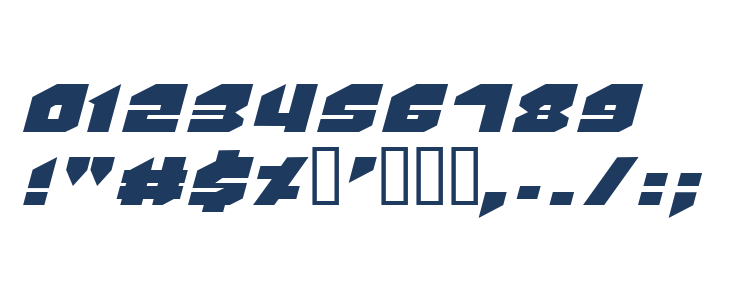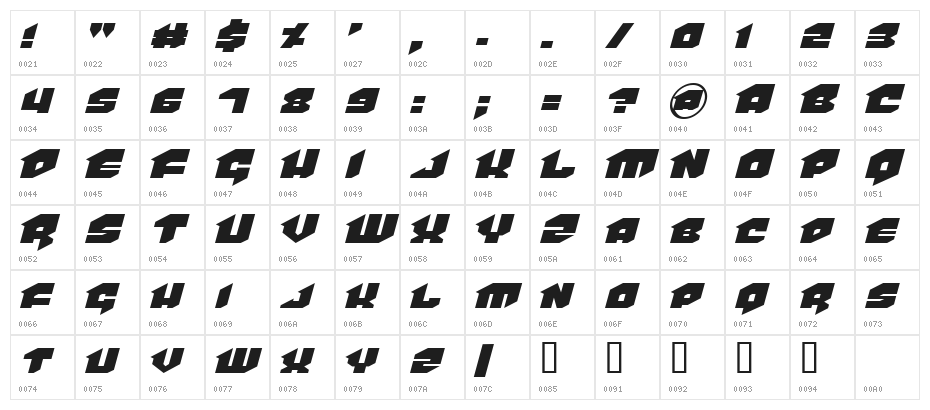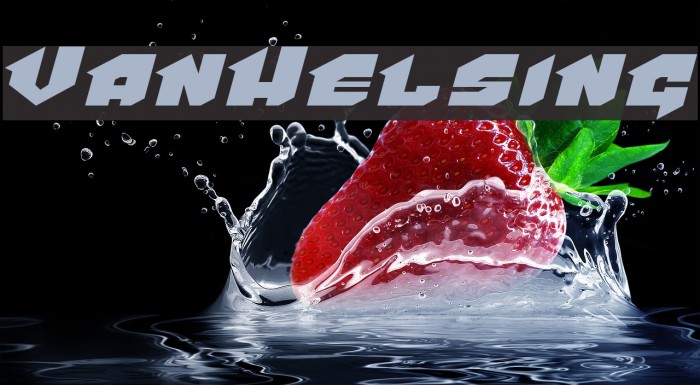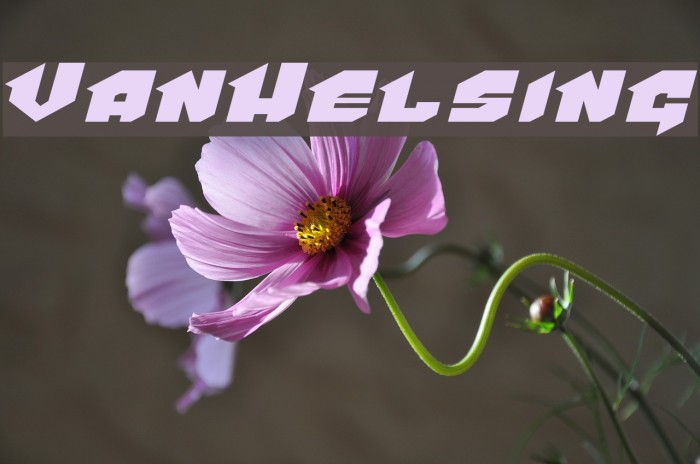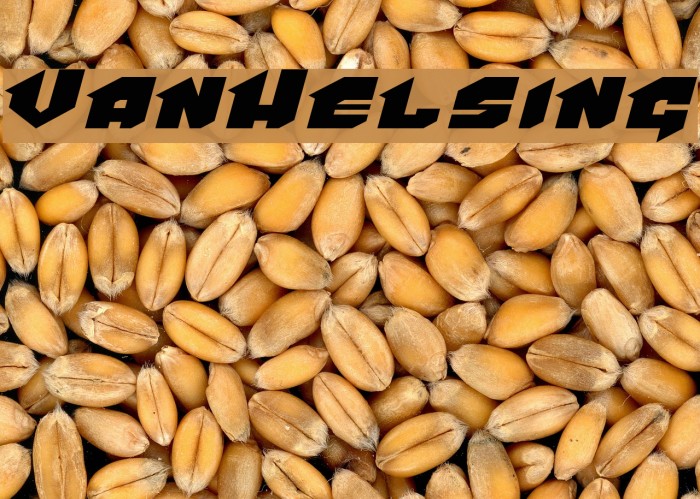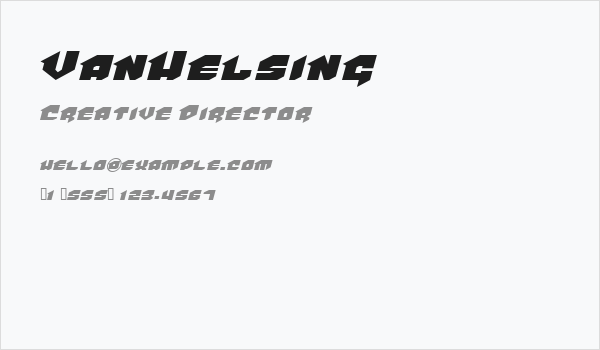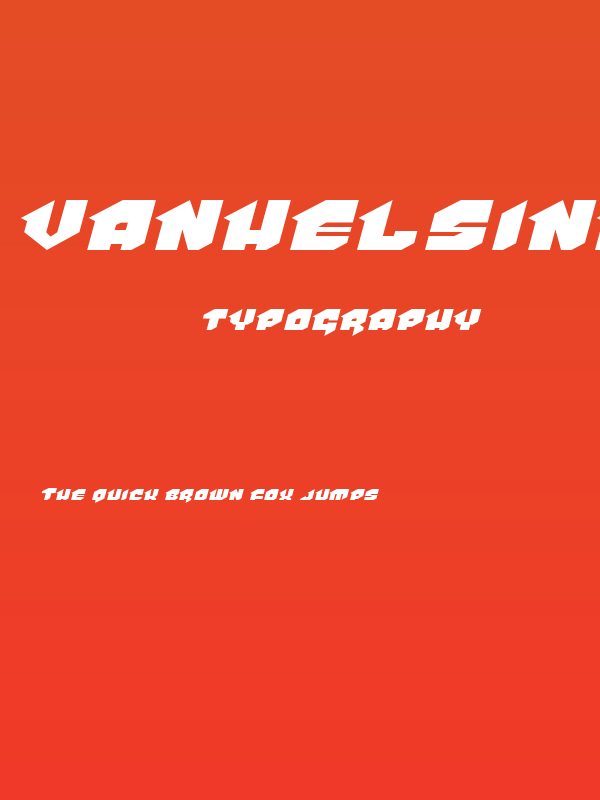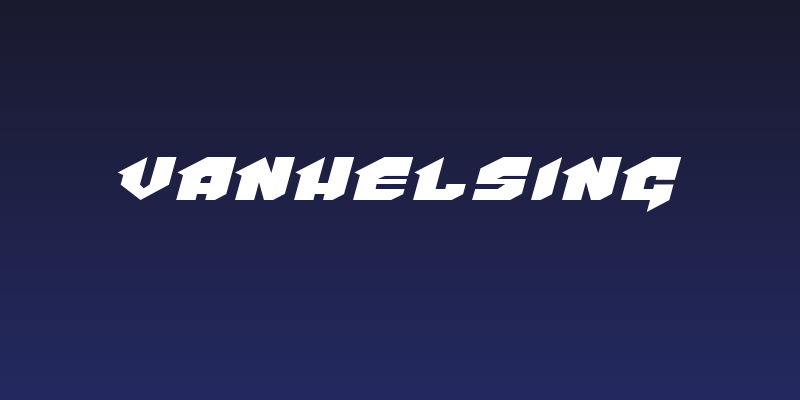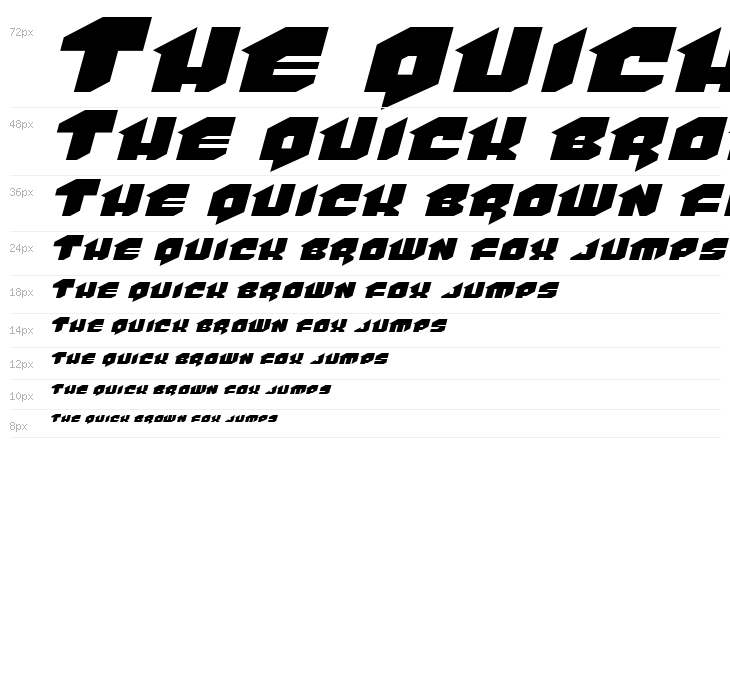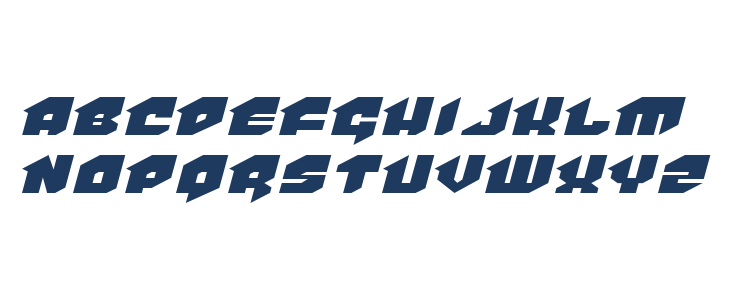
VanHelsing Font
This font exhibits a bold and dynamic style with sharp, angular edges and a strong presence. The characters are designed with a distinct geometric flair, creating a sense of movement and energy. The uppercase and lowercase letters maintain a consistent angular theme, while the numbers and special characters complement the overall aesthetic. The font's boldness and unique design make it stand out, suitable for projects that require a striking and memorable appearance.
| Proposed Projects | Ideal for use in video game titles, movie posters, branding for edgy or modern products, and any project requiring a strong visual impact. |